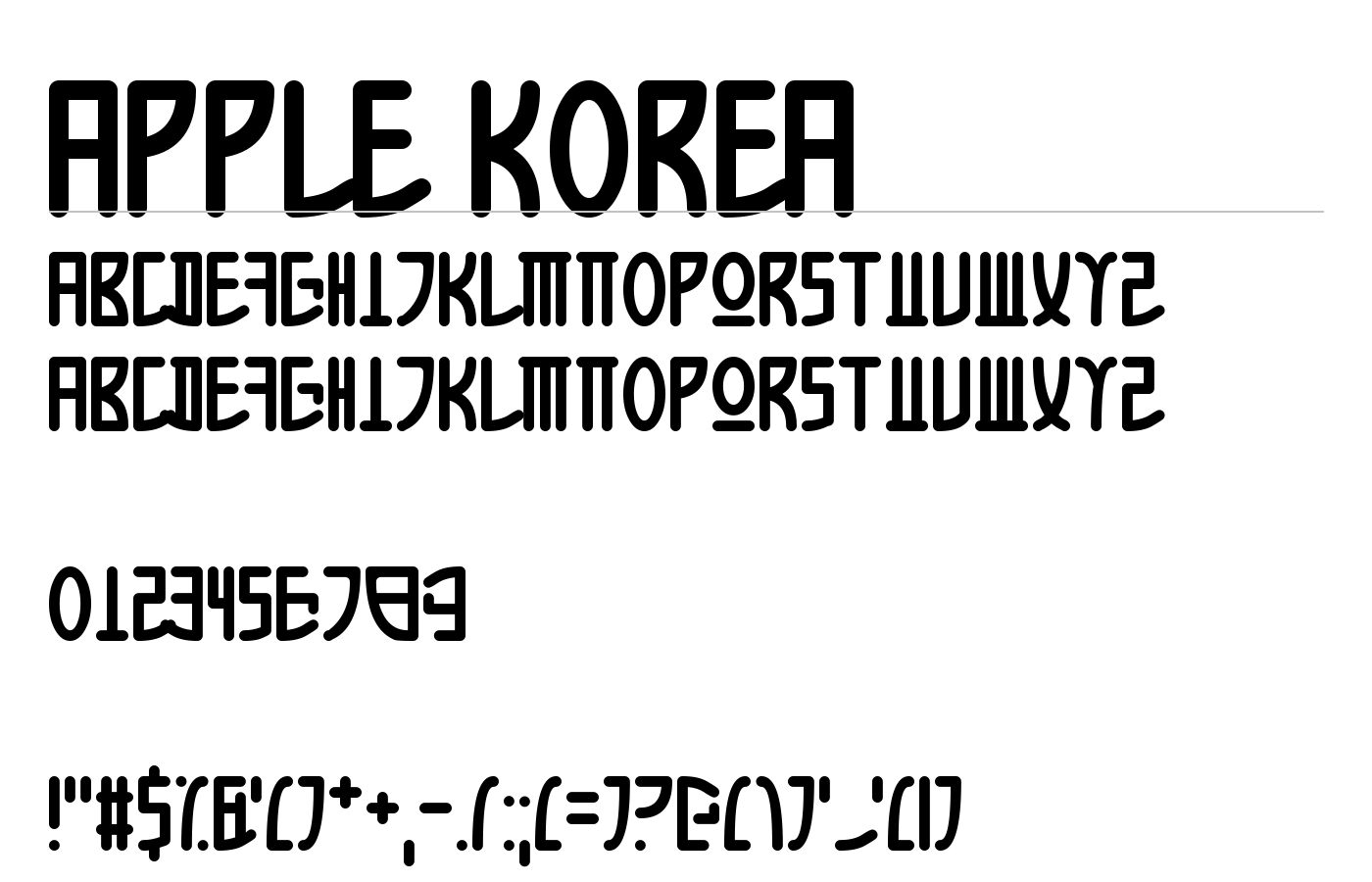
Apple Korea Font is a unique, modern sans serif typeface with a narrow, condensed width and consistent medium weight. Its tall, rounded letterforms and playful curves create a friendly yet futuristic feel, making it ideal for tech-focused branding, headlines, and digital interfaces where a distinctive, approachable style is desired. This font’s clean lines and geometric shapes help it stand out, offering a fresh and innovative look that balances readability with personality.
Apple Korea Font
About Apple Korea Font